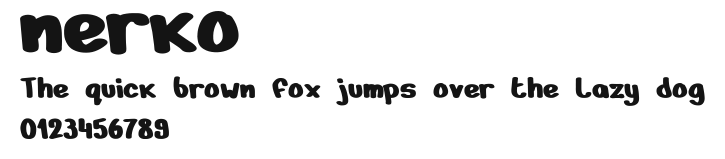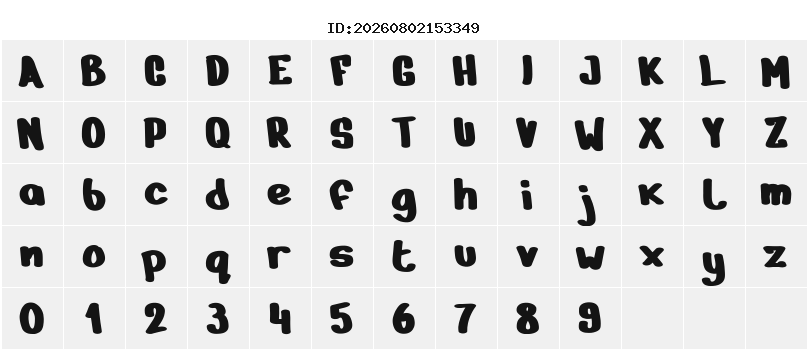
nerko Preview
• Font Name: nerko
• Font Style: nerko
• Font ID: 1.000;PYRS;nerko
• Full Font Name: nerko
• PostScript Name: nerko
• Character Count: 98
• Designer: Nermin Kahrimanovic
• Manufacturer: Nermin Kahrimanovic
About nerko.ttf
nerko.ttf is a modern, elegant sans-serif font designed for ultimate readability and visual harmony. Perfect for branding, headlines, web design, and print materials.